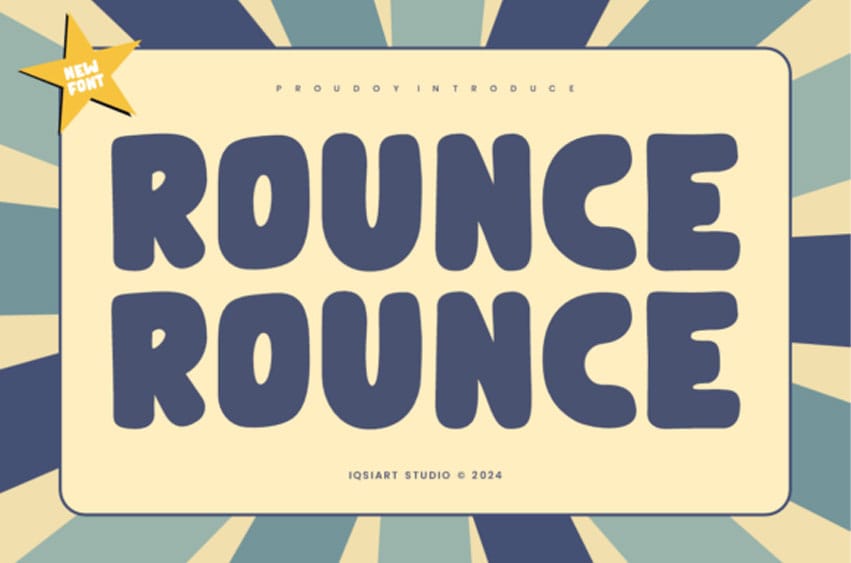
Rounce Font is a fun and bouncy display font with a bold personality and soft, rounded edges. Its playful and retro aesthetic makes it a perfect choice for eye-catching designs, from kids’ products and greeting cards to bold branding and quirky posters.
The chunky letterforms and friendly vibes bring a joyful and approachable feel, making your messages stand out with charm and energy.